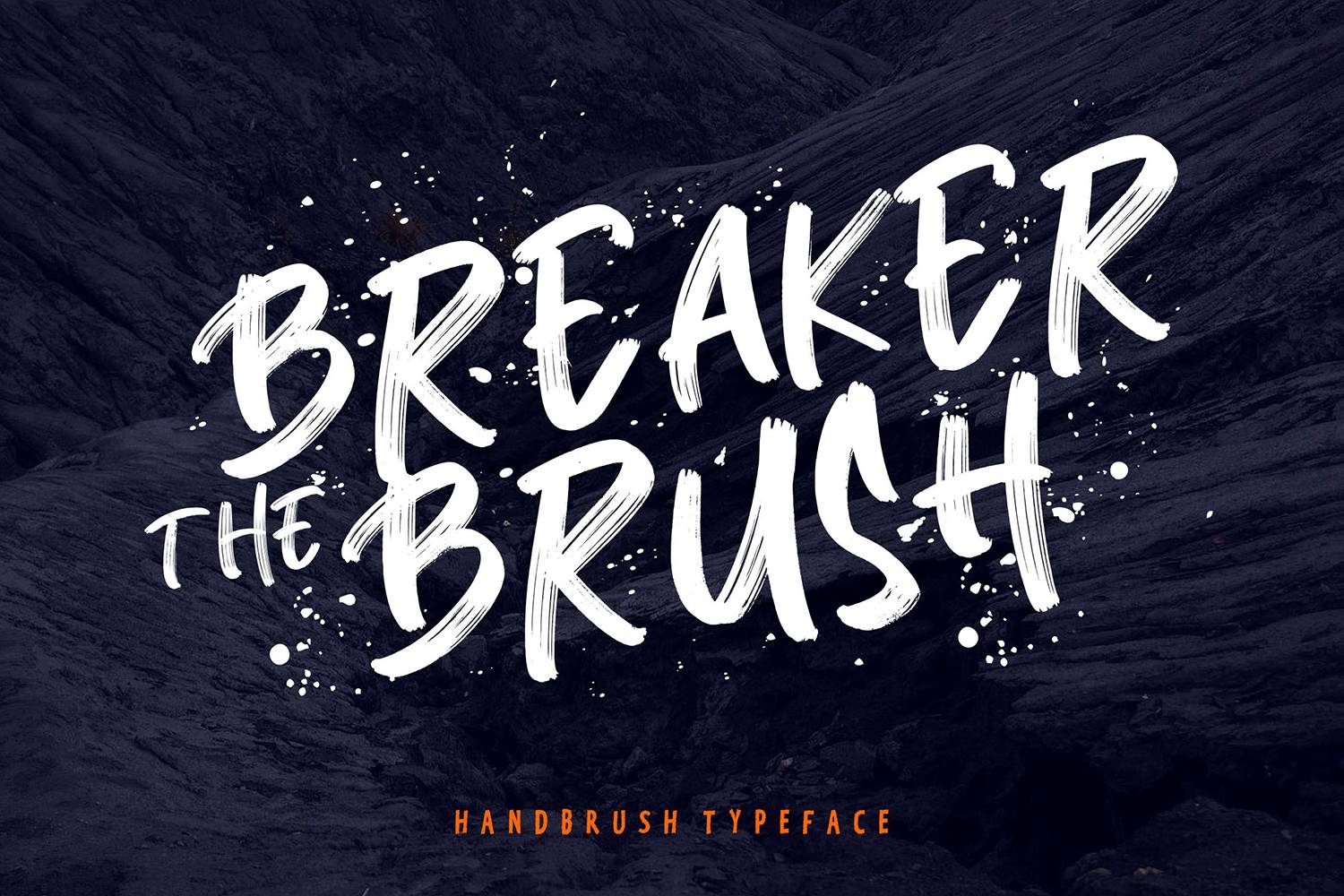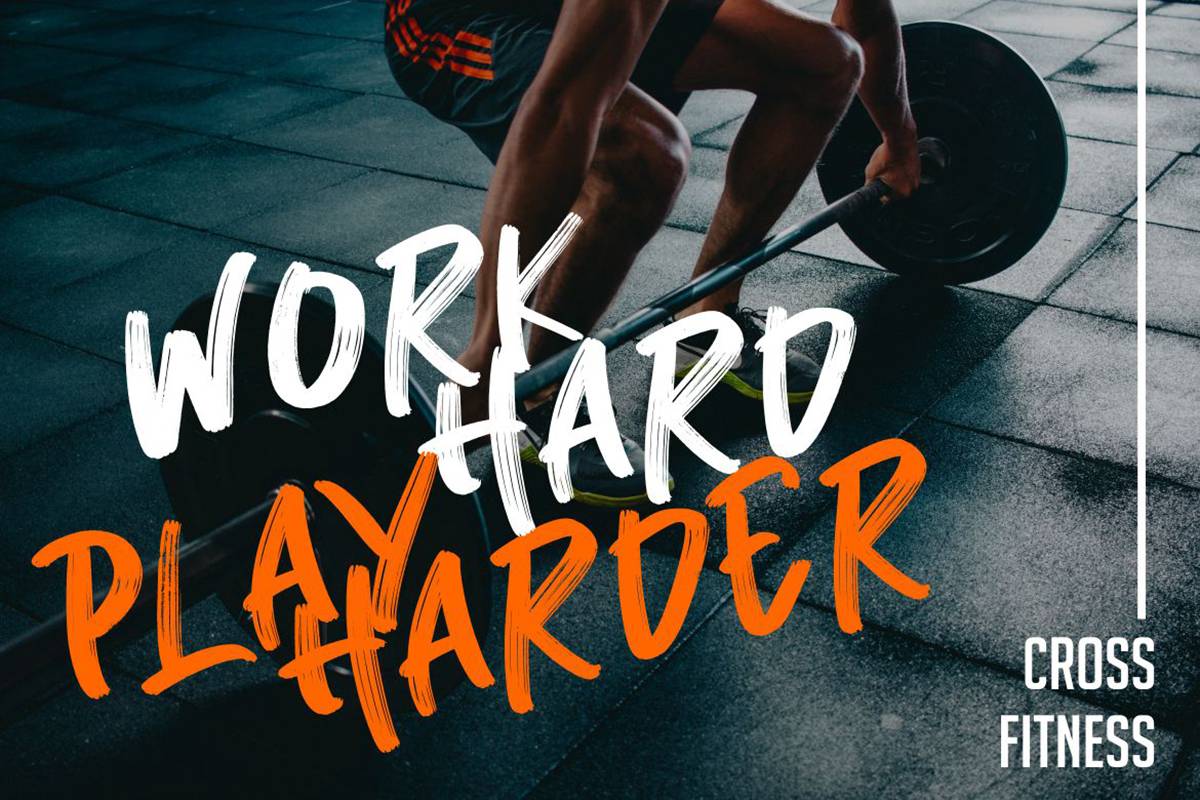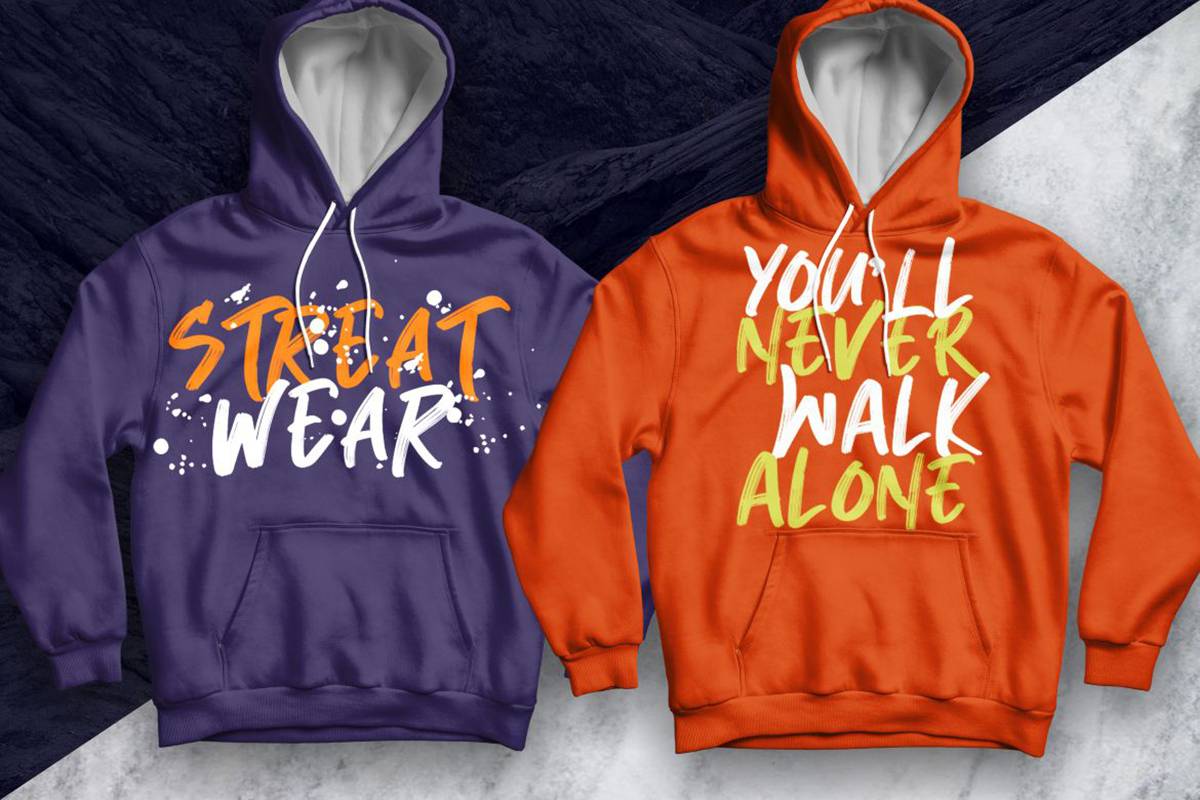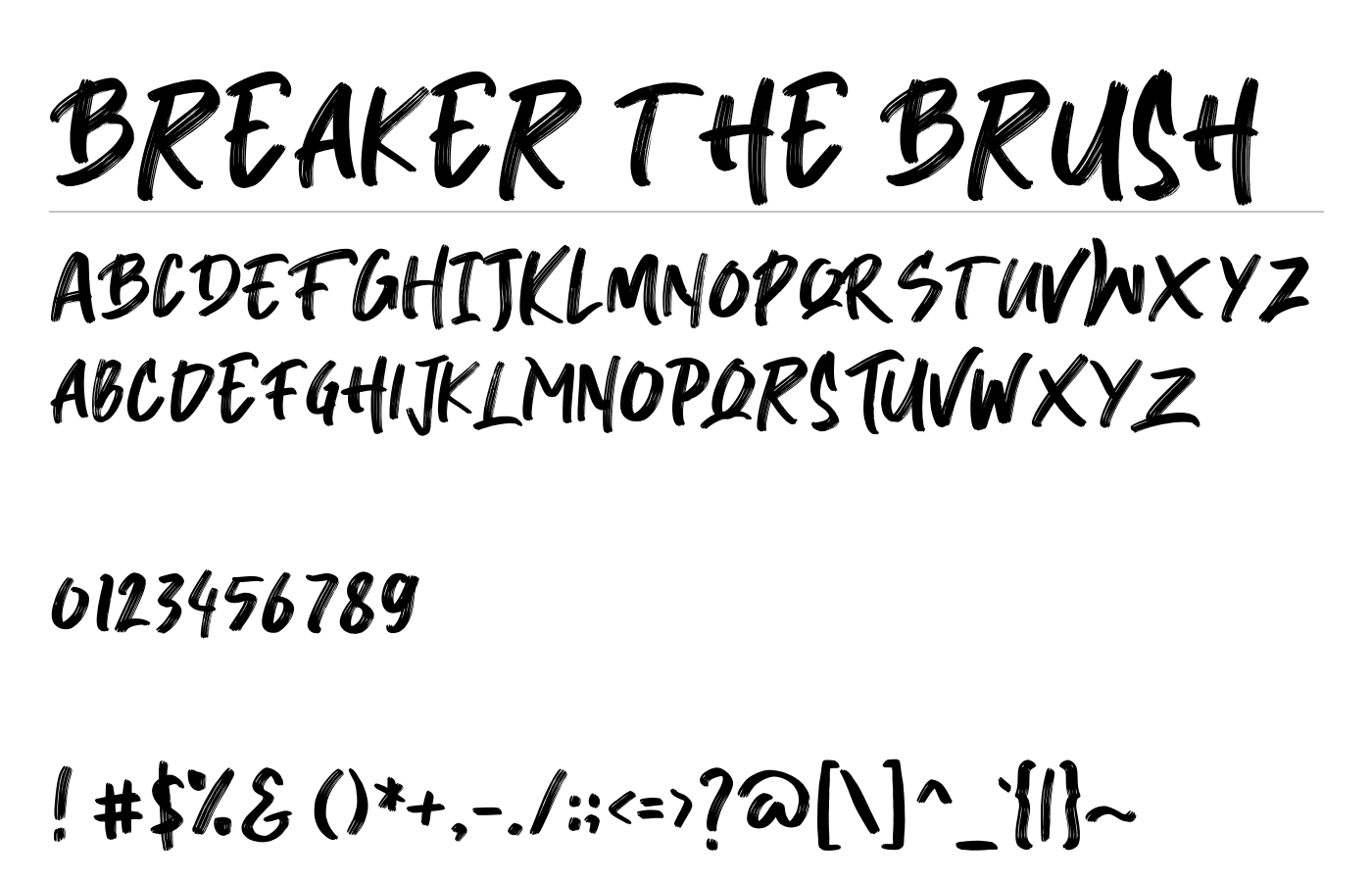
Breaker The Brush is a lively brush script font with bold, textured strokes that capture an energetic, hand-painted feel. Its upright, casual letterforms blend a natural flow with strong presence, making it perfect for creative, sporty, or youthful branding and display uses. This font works best in headlines, logos, and posters where a dynamic, personal touch is needed.
Breaker The Brush Font
About Breaker The Brush Font